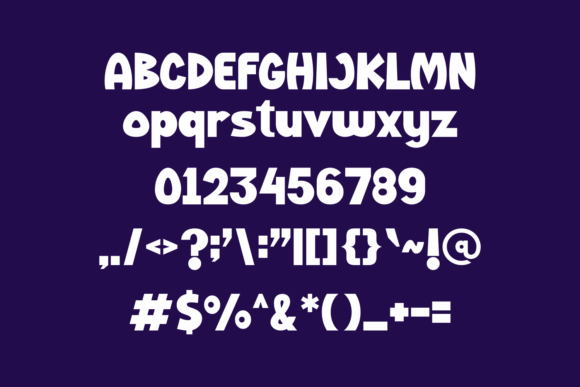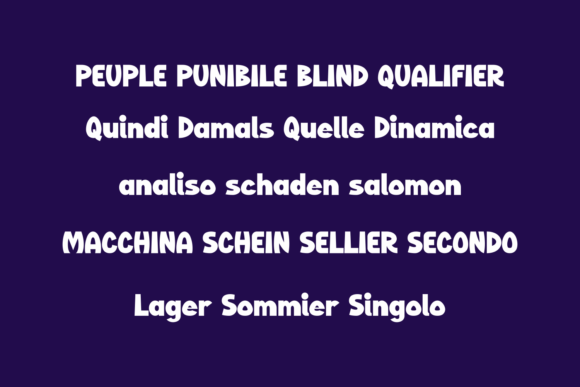
Introducing Dinoris Font: The Ultimate Sans Serif for Creative Minds
Are you a designer, crafter, or simply a creative enthusiast looking for the perfect font to bring your projects to life? Look no further than Dinoris Font, a fun and versatile sans serif font that’s sure to spark your imagination. With its natural and unique style, Dinoris is incredibly fitting for a wide range of designs, making it the perfect addition to your typography toolkit.
The Versatility of Dinoris Font
Dinoris Font is more than just a pretty face – it’s a highly versatile typeface that can be used in a multitude of design applications. Whether you’re working on a logo, branding project, website, or craft project, Dinoris is the perfect choice. Its clean and modern sans serif design makes it easy to read and understand, while its unique flair adds a touch of personality to any design.
What Makes Dinoris Font So Special?
So, what sets Dinoris Font apart from other sans serif fonts on the market? Here are just a few of its standout features:
- Natural and Unique Style: Dinoris has a distinct, organic feel that’s both modern and approachable. Its subtle imperfections and quirks make it feel more human and less like a generic, computer-generated font.
- Highly Legible: Despite its unique style, Dinoris is incredibly easy to read, even at small font sizes. This makes it perfect for body text, captions, and other applications where readability is key.
- Extremely Versatile: Dinoris can be used in a wide range of design applications, from elegant and sophisticated to playful and whimsical.
Design Applications for Dinoris Font
So, what kinds of projects can you use Dinoris Font for? The possibilities are endless, but here are a few ideas to get you started:
- Logo Design: Dinoris is a great choice for logos, particularly for brands that want to convey a sense of modernity and approachability.
- Branding and Packaging: Use Dinoris to create cohesive branding and packaging that stands out on store shelves.
- Web Design: Dinoris is a great choice for website design, particularly for sites that want to convey a sense of friendliness and approachability.
- Crafting and DIY Projects: Dinoris is perfect for crafters and DIY enthusiasts who want to add a personal touch to their projects.
Tips for Using Dinoris Font
Here are a few tips for getting the most out of Dinoris Font:
- Experiment with Font Sizes: Dinoris looks great at a wide range of font sizes, from small and delicate to large and bold.
- Play with Color: Dinoris is a versatile font that can be paired with a wide range of colors and textures.
- Don’t Be Afraid to Get Creative: Dinoris is a font that encourages creativity and experimentation. Don’t be afraid to try new things and push the boundaries of what’s possible.
In conclusion, Dinoris Font is a fun and versatile sans serif font that’s perfect for designers, crafters, and creative enthusiasts of all kinds. Its natural and unique style makes it incredibly fitting for a wide range of designs, and its high legibility and versatility make it a great choice for any project. So why wait? Download Dinoris Font today and see what amazing things you can create!